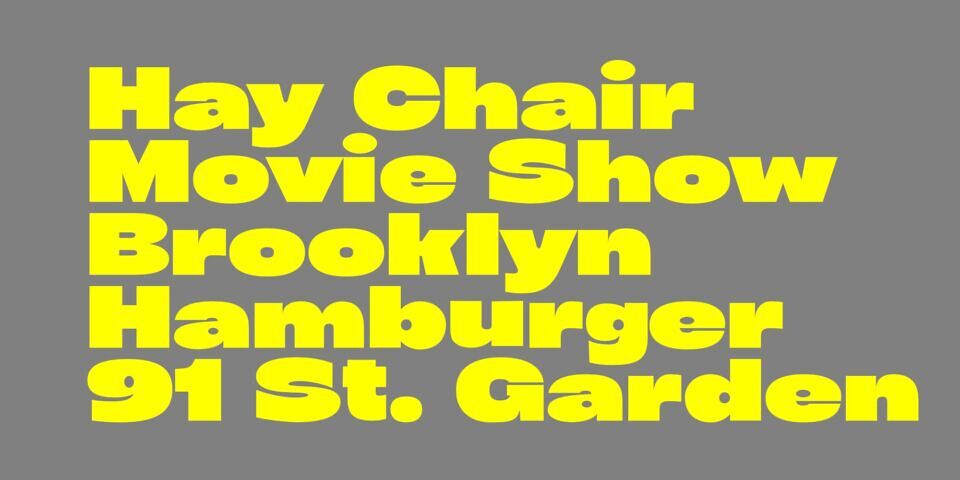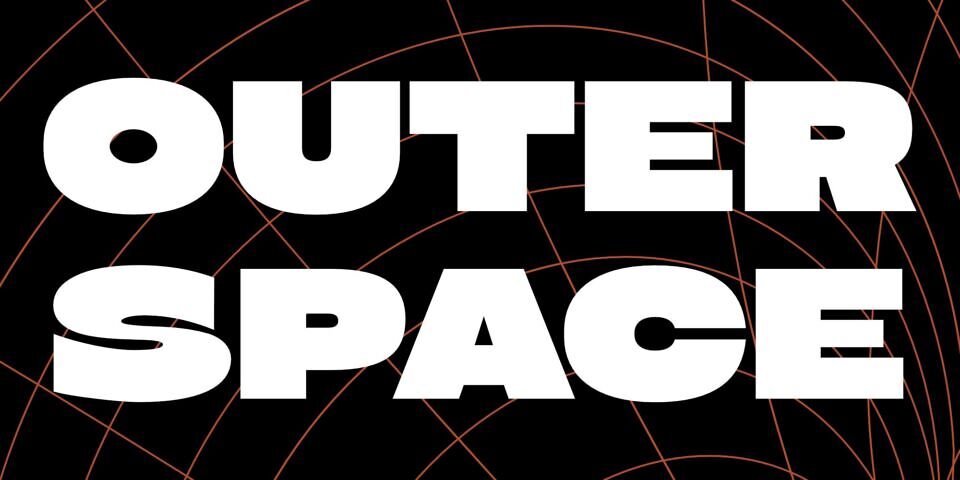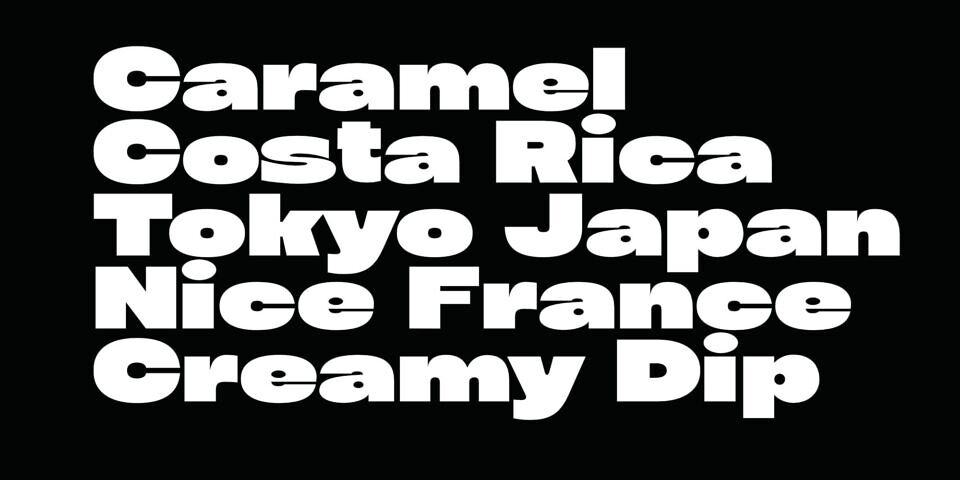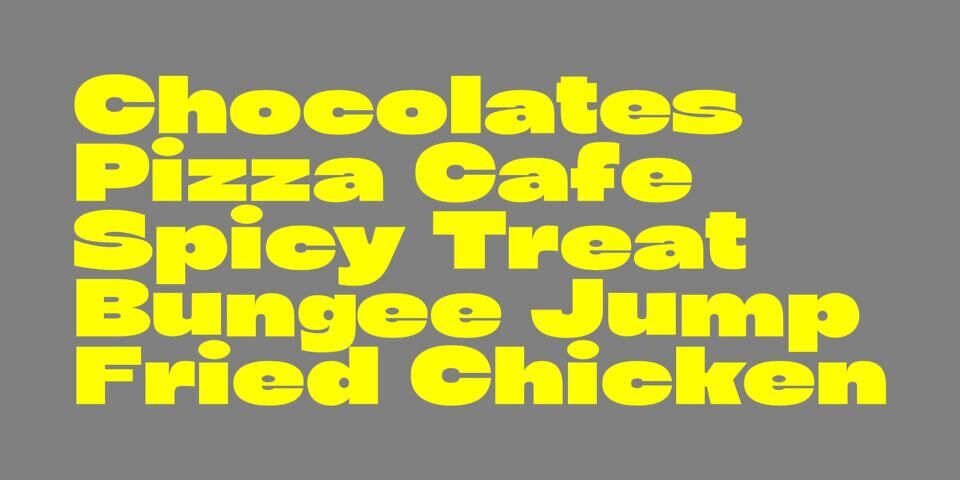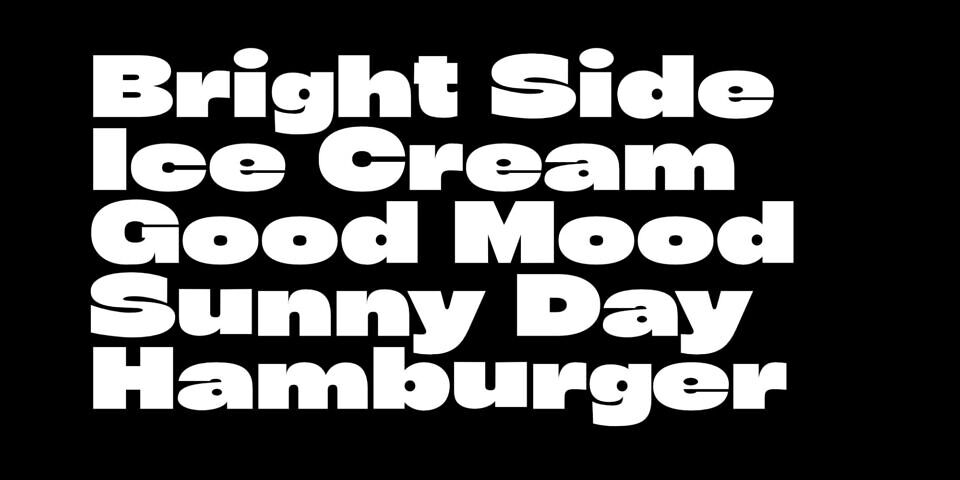
Introducing Gettie, a friendly and versatile new typeface that brings a fun vibe to your projects. With its playfulness and contemporary flair, Gettie is great for display projects, brings summer vibes to any design, making it the perfect choice for branding, eye-catching packaging, and cheerful designs.